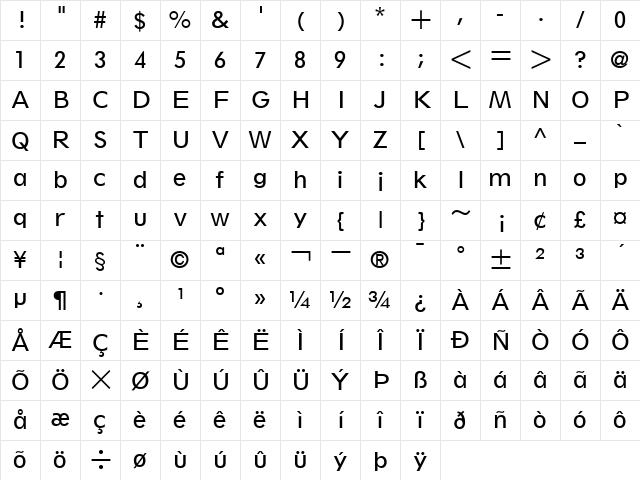
Complete SpartanClassified- Book glyph index. Displaying only characters natively supported by SpartanClassified- Book font.
SpartanClassified- is a composed and adaptable typeface that performs quietly and consistently across a wide range of design contexts.